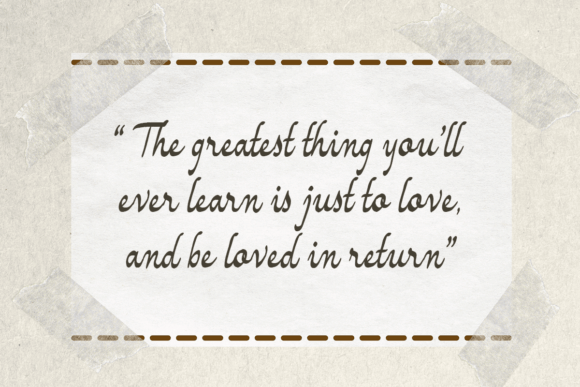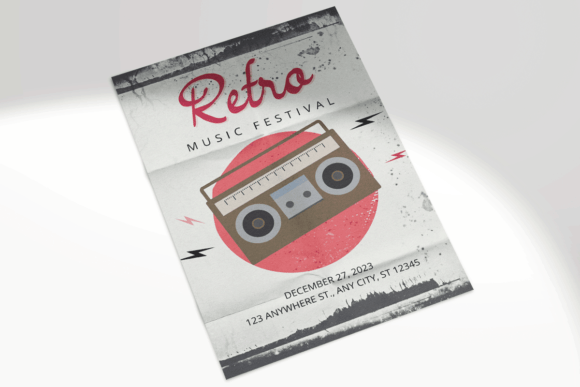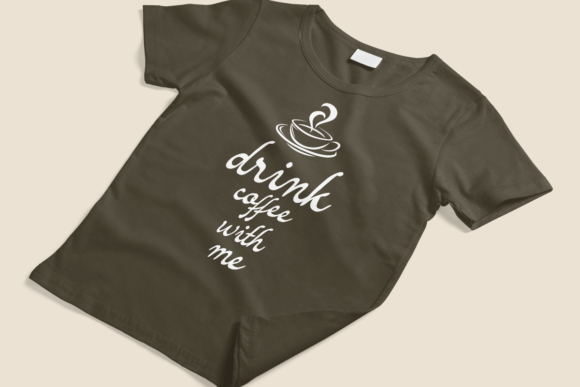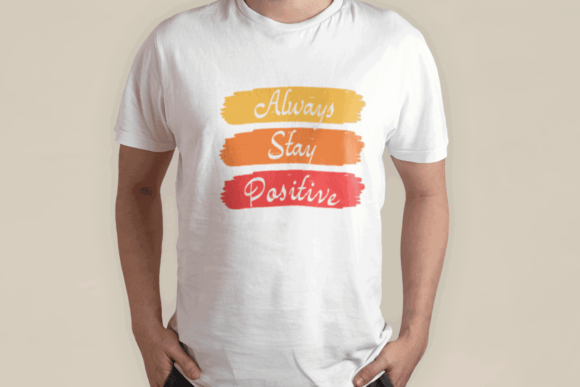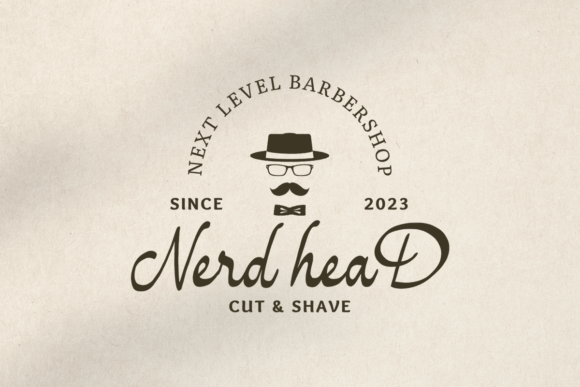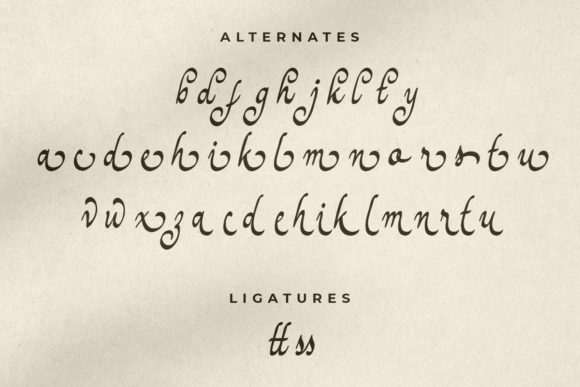
Introduction to Hand Vintage Font
Hand Vintage is a stylish and retro handwritten script font.
The font will take you back to the good old days of hand-written love letters and jotting down ideas on paper with a fountain pen Perfect for adding that final touch to your designs, whether they be wedding invitations or birthday cards.